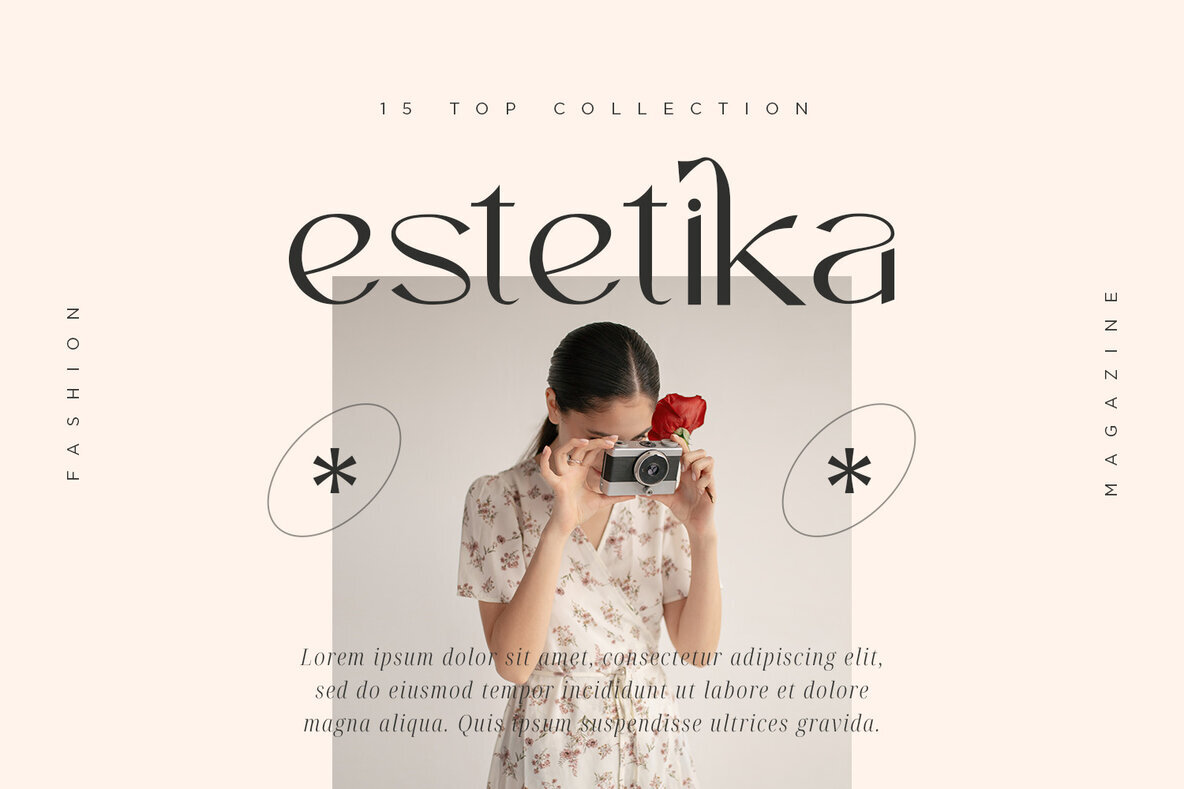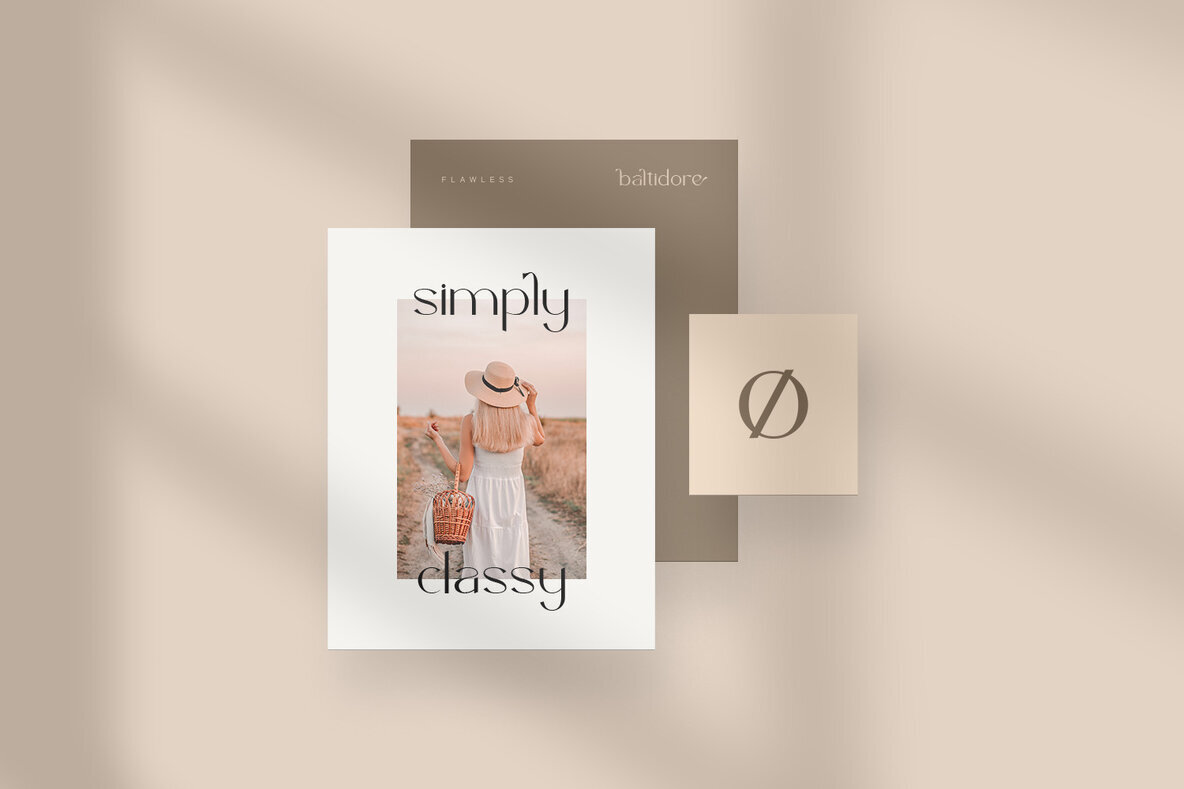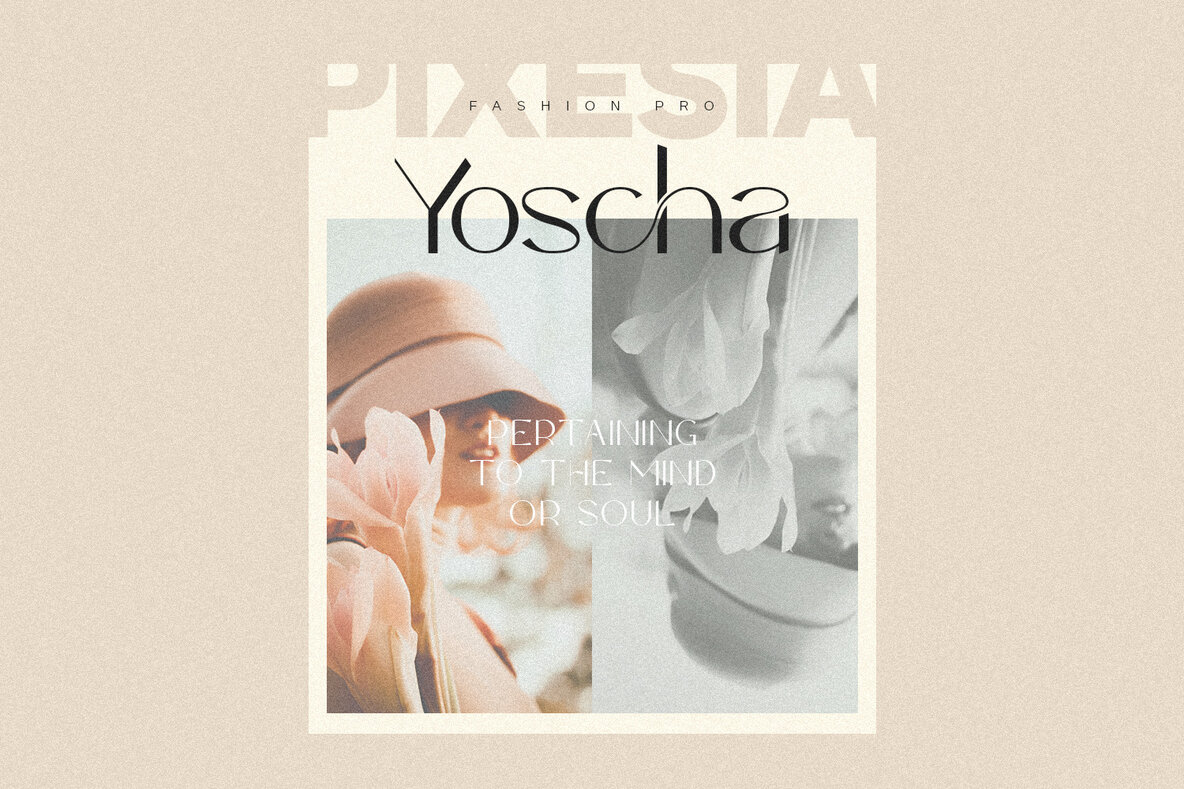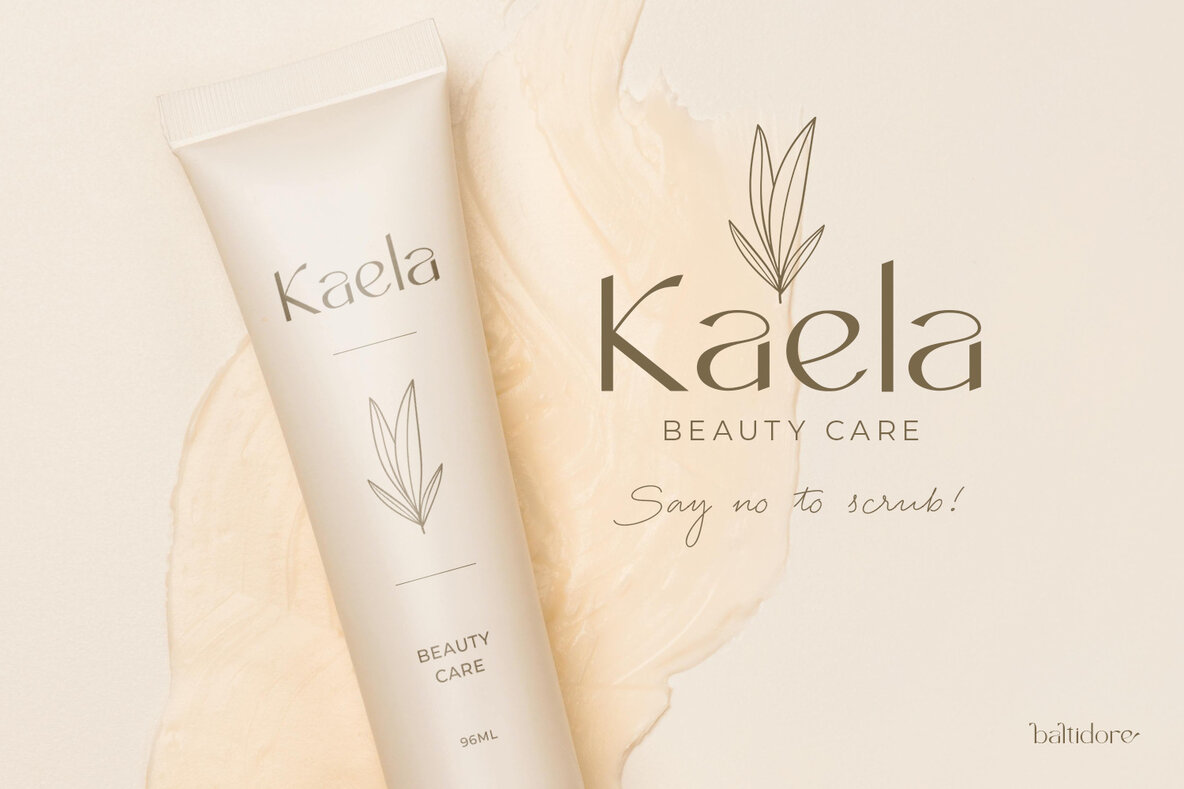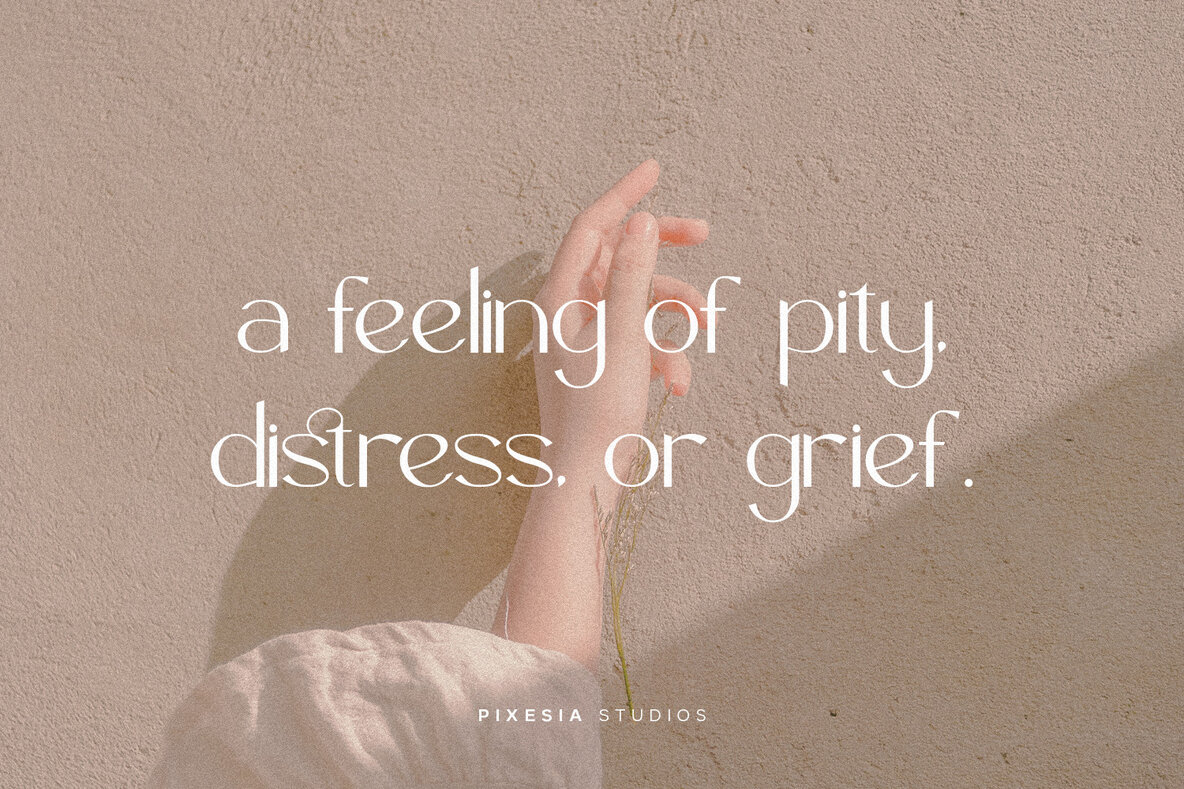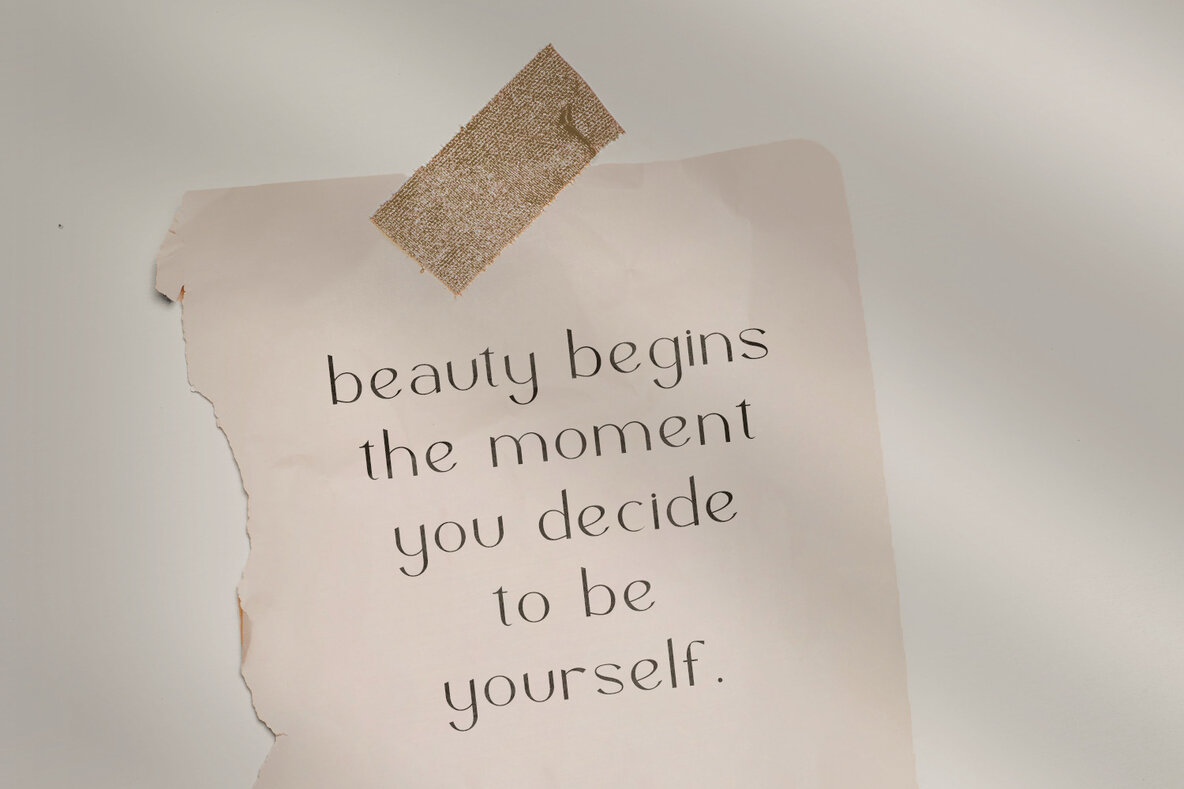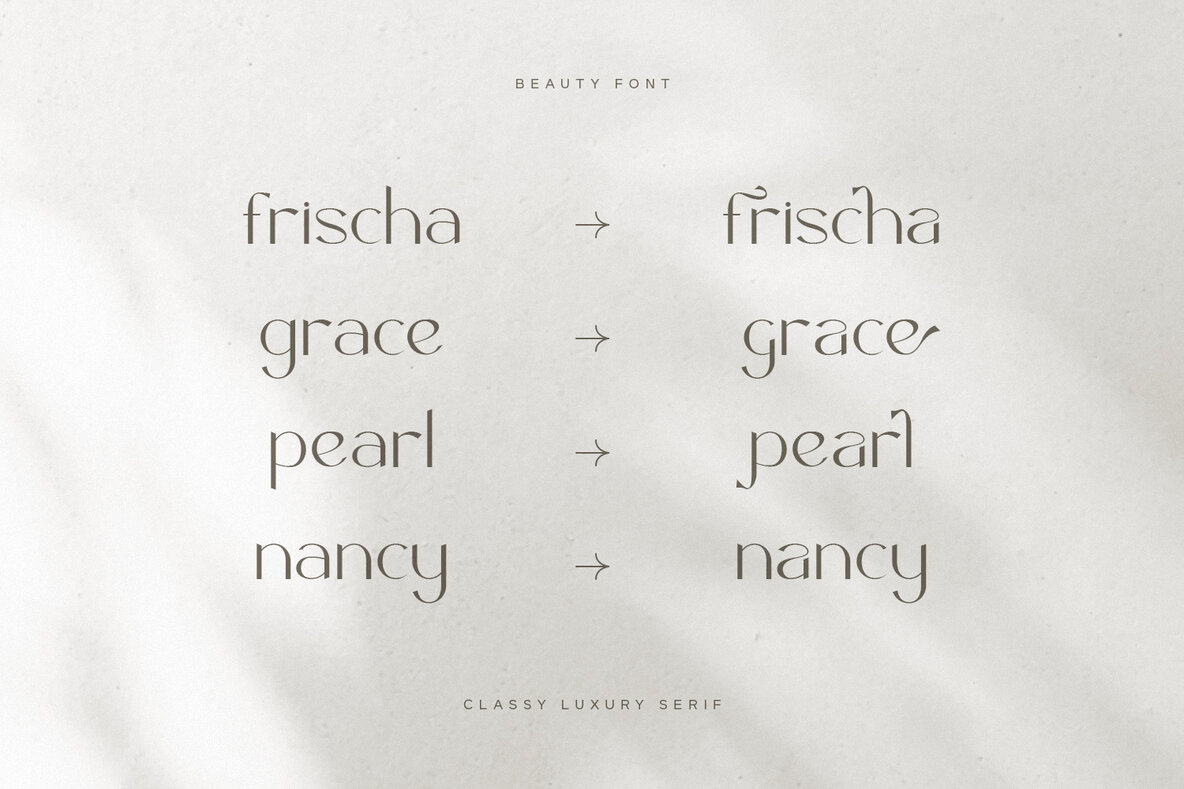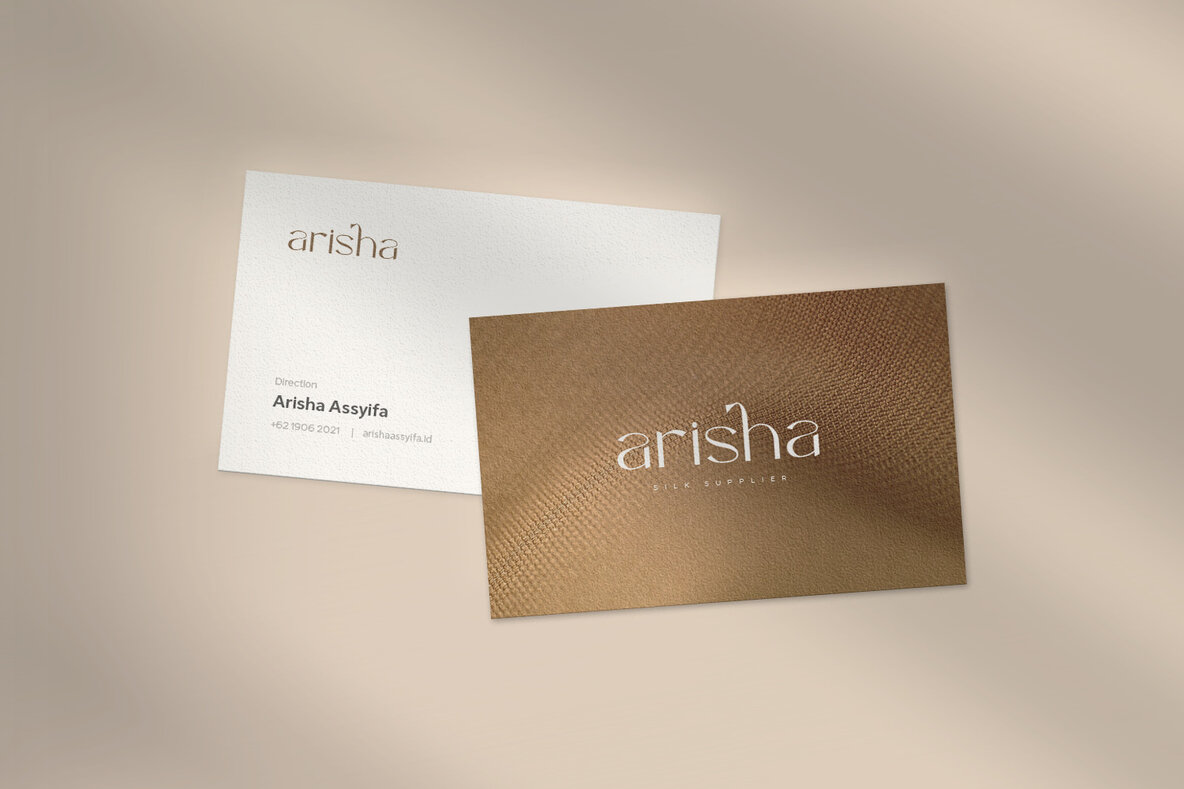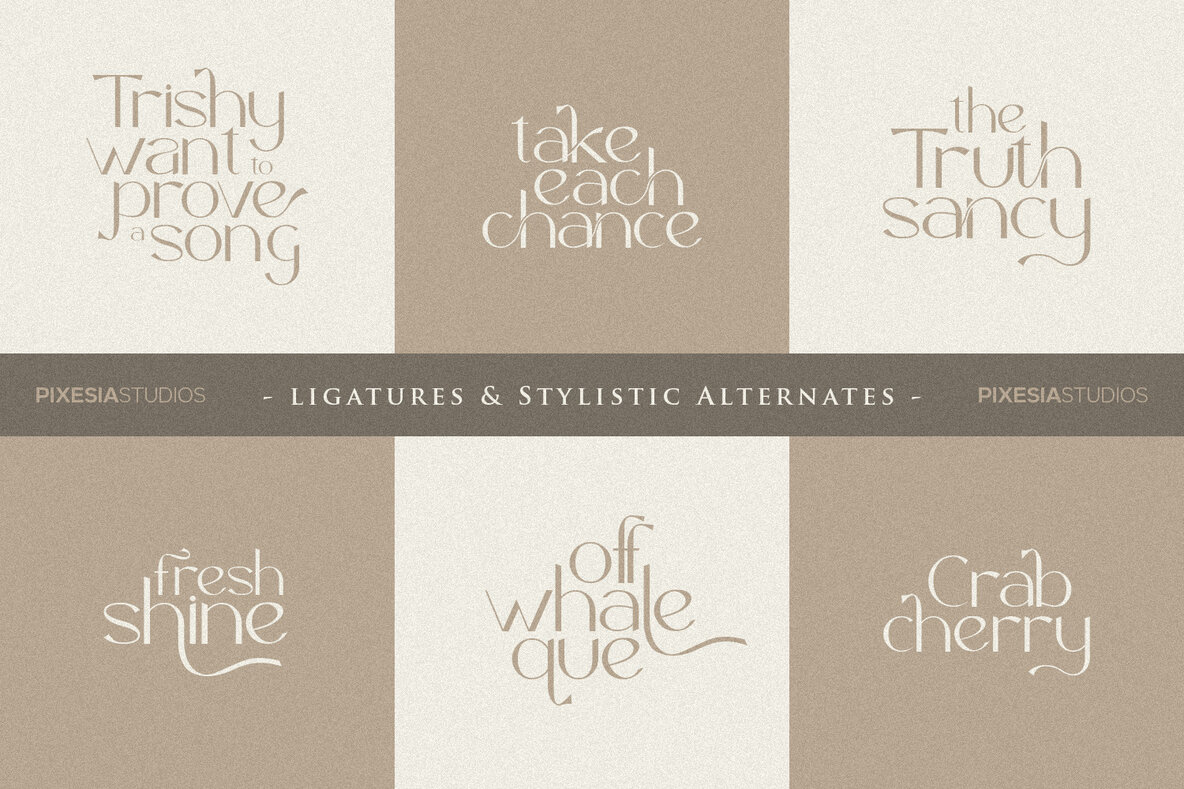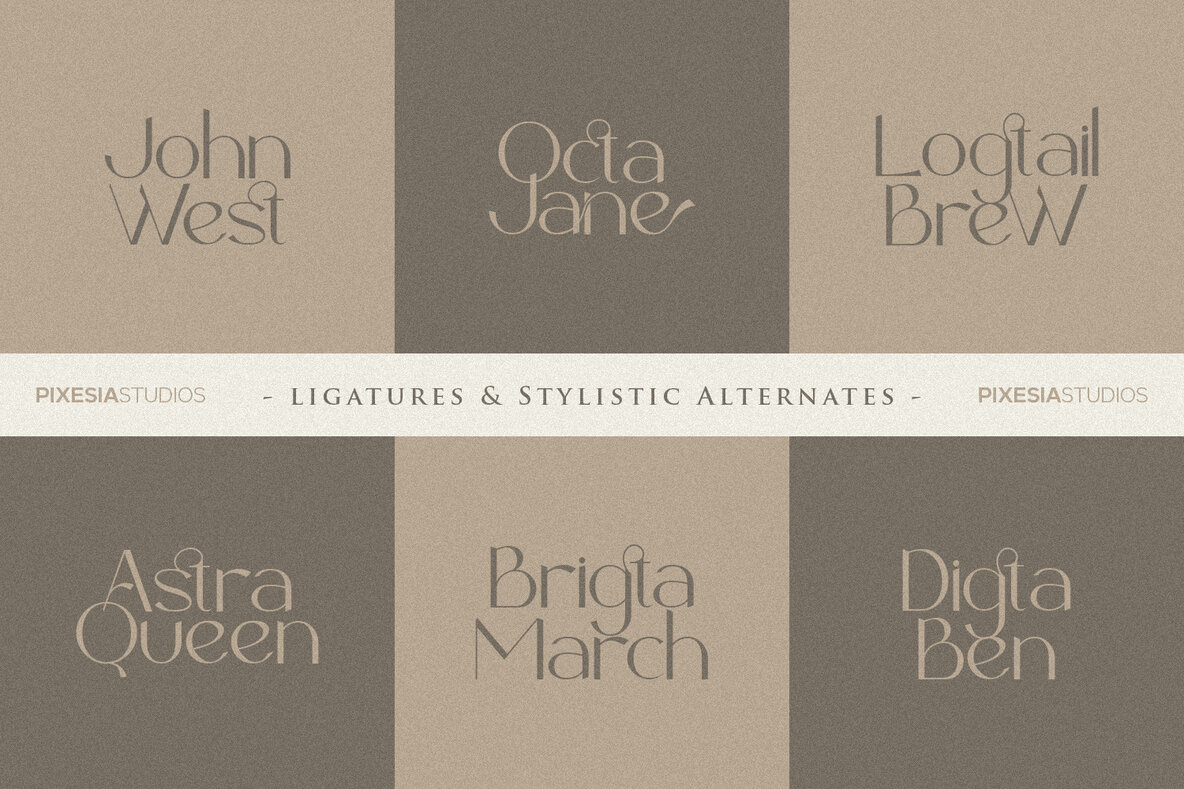
Baltidore Font
Discover the allure of Baltidore, an exquisite sans serif font that radiates elegance. Crafted for versatility, this typeface merges luxury with simplicity, offering endless possibilities for your creative projects. Whether you're designing a high-end brand identity or crafting compelling visuals, Baltidore stands as a testament to style and functionality, making it an indispensable tool in any designer's arsenal.Baltidore: Sophisticated Sans Serif for Luxe Designs